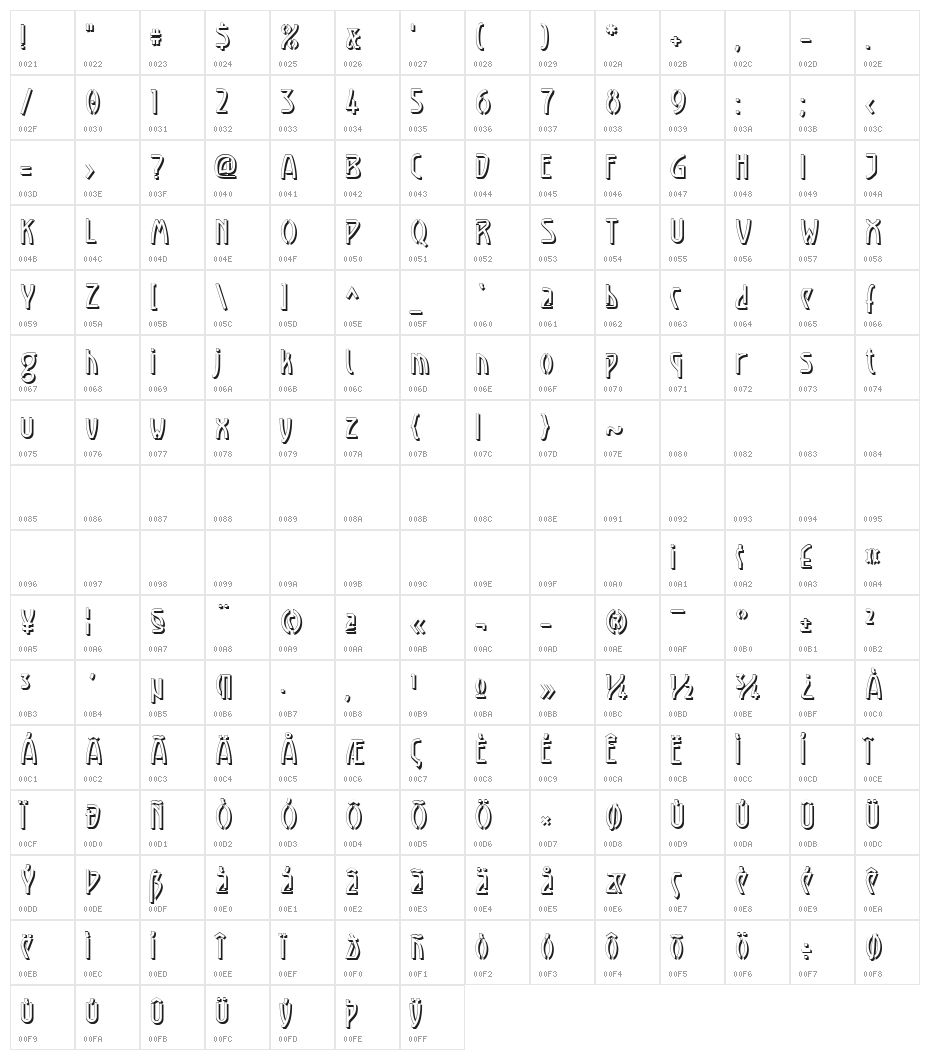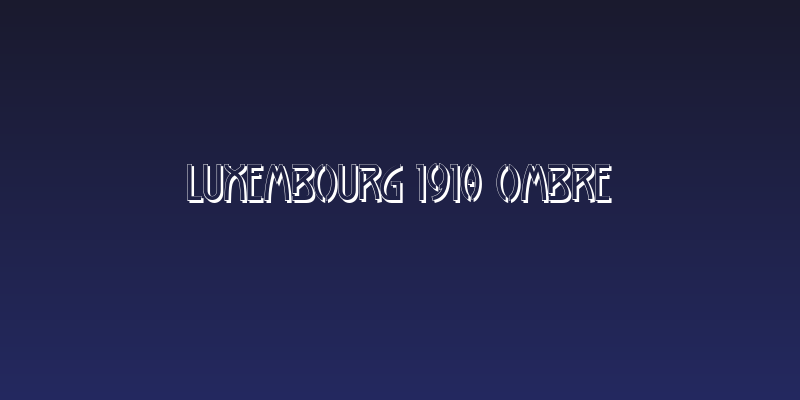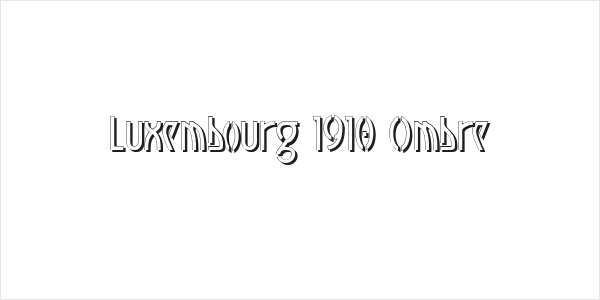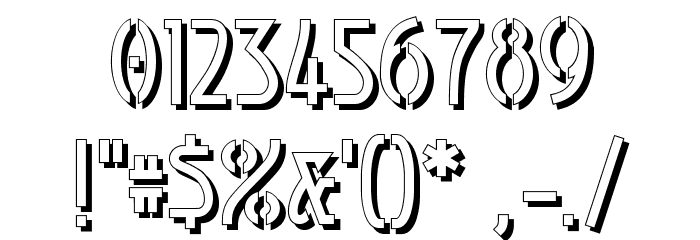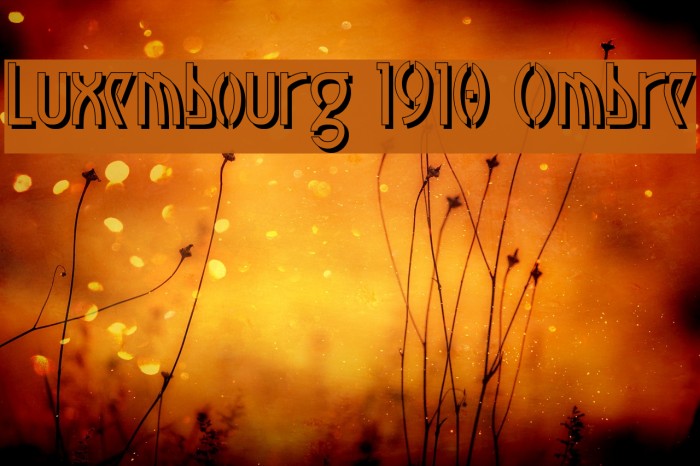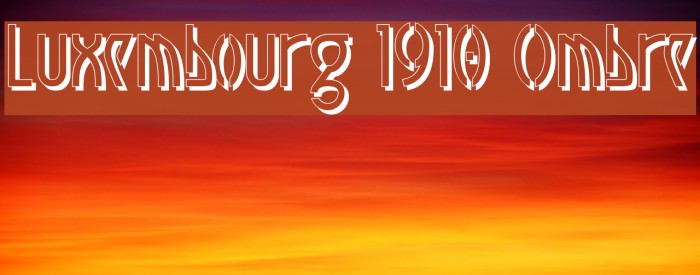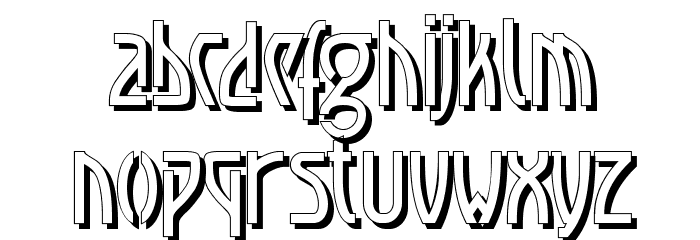
Luxembourg 1910 Ombre Font
Luxembourg 1910 Ombre Description
This font features a bold and striking design with a three-dimensional shadow effect that gives it a unique and eye-catching appearance. The characters are structured with clean, geometric lines and a consistent thickness, creating a modern and dynamic look. The shadow effect adds depth and dimension, making it stand out in any design. The uppercase and lowercase letters maintain a uniform style, while the numerals and special characters complement the overall aesthetic. This font is ideal for projects that require a bold statement and a touch of creativity.
| Proposed Projects | Ideal for posters, headlines, logos, and branding materials that need a bold and creative touch. |